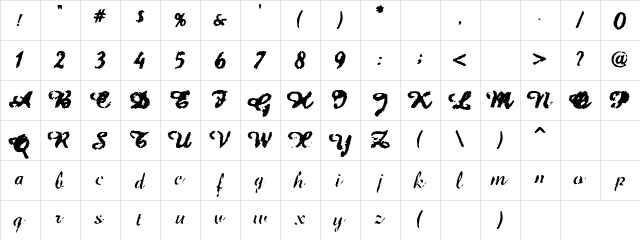
Concard Regular
Design Context for Concard Typeface
Concard is a composed and adaptable typeface that performs quietly and consistently across a wide range of design contexts.